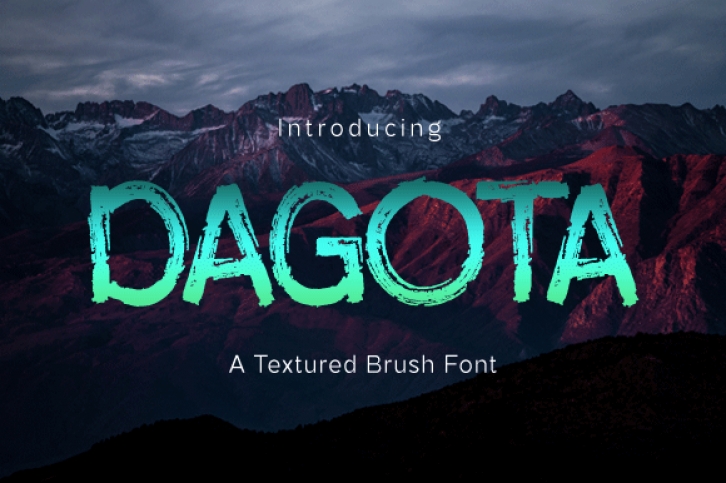
Dagota is a cool, brushed display font. No matter the topic, this font will be an incredible asset to your fonts’ library, as it has the potential to elevate any creation.